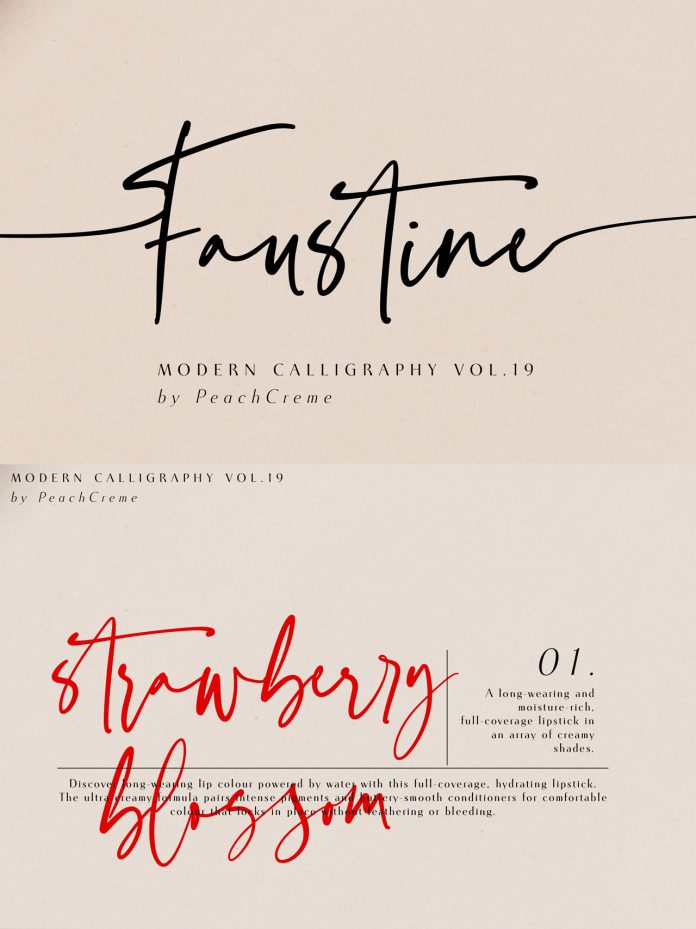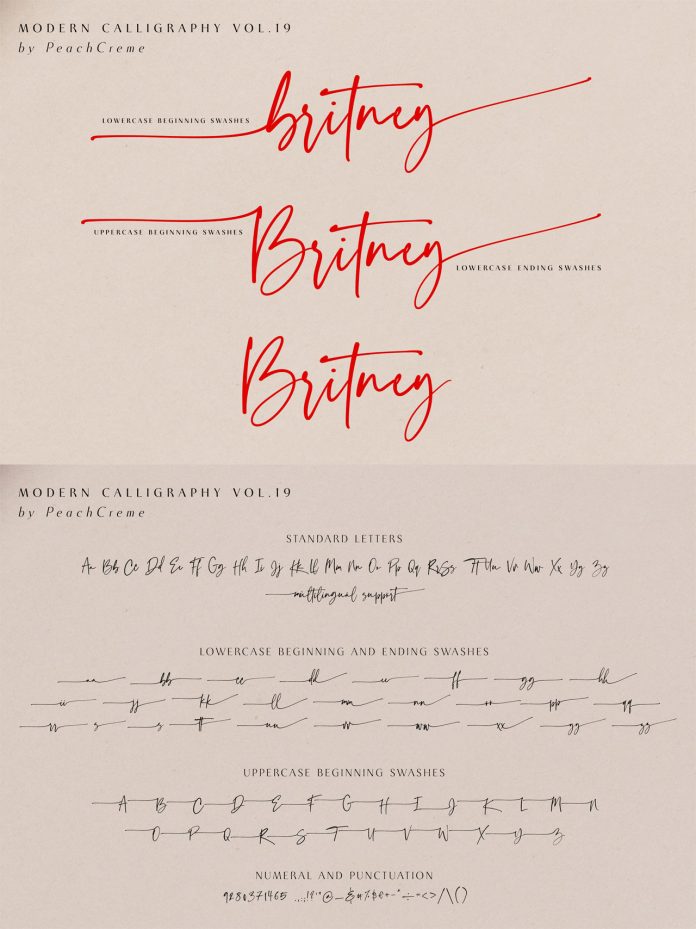
Faustine, a lovely handwritten script font with a charming feminine touch.
Designed by Gulya aka PeachCreme, a skilled graphic designer and lettering artist, Faustine is a charming script font based on a natural handwriting style. The typeface includes uppercase and lowercase characters as well as an extensive set of numerals, punctuation, and ligatures. The lowercase letters are equipped with elegant beginning and ending swashes while the uppercase letters come with beginning swashes. Please note, if you want to make use of all the swashes, you need professional software that supports OpenType features such as Adobe Photoshop, Illustrator, or InDesign. You can get the latest versions from the Adobe Creative Cloud website, just have a look here.
The Faustine script font is a great choice for personalized greeting cards, invitations, quotes, small text overlays on social media images, clothing, etc. There are countless possibilities. To learn more about this charming script font, please click on the following link or scroll down the see the images below.